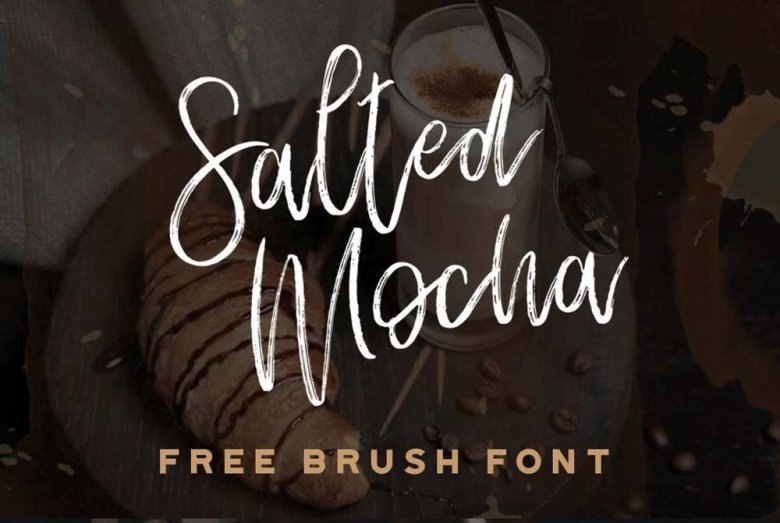
Salted Mocha Brush Font
A new font Brush, it’s good if you add it to your collection of fonts. Introducing Salted Mocha Brush Font! Salted Mocha designed and shared by Stephanie Arsenault. Salted Mocha is a hand drawn brush script typeface. Free for personal & commercial use! Salted Mocha can used for various purposes. such as the envelope desigin, logo, title, wedding invitations, letterhead, labels, newsletters, signage, posters, badges, etc.